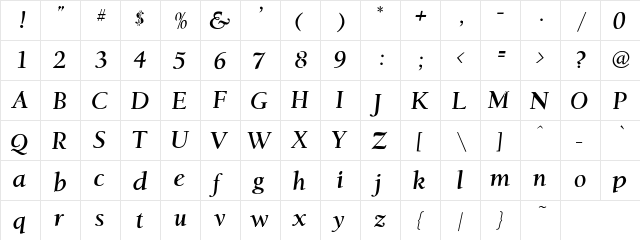
Heatherville Regular
Design Context for Heatherville Typeface
Heatherville is a composed and adaptable typeface that performs quietly and consistently across a wide range of design contexts.